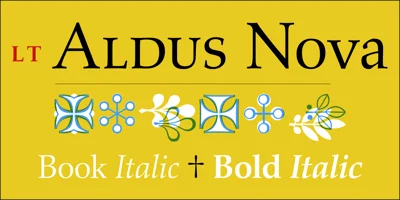
Aldus Nova Font
Aldus Nova Font is ideal for fine literature publishing, academic journals, scholarly publications, classical poetry collections, Renaissance studies materials, humanist typography projects, university press books, and distinguished editorial designs requiring exceptional reading comfort.
What makes Aldus Nova Font exciting is its humanist perfection that embodies the revolutionary printing innovations and scholarly excellence of Aldus Manutius through refined, reader-optimized letterforms. This masterful typeface features contemporary interpretations of Renaissance proportions with enhanced legibility that honors the pioneering spirit of Venetian printing while delivering superior reading experiences, making it perfect for projects requiring both historical reverence and modern typographic excellence in their scholarly communications.
The Aldus Nova Font family includes multiple weights and optical sizes, plus expert character sets with oldstyle numerals and classical ligatures that enhance the humanist aesthetic with authentic Renaissance typography conventions and contemporary refinements for academic applications.
This exceptional typeface delivers outstanding scholarly authority and reading optimization, making Aldus Nova Font a treasured resource for academic publishing and cultural preservation projects. The font's humanist character makes it perfect for institutions wanting to convey intellectual excellence and typographic sophistication in their publications. University presses and scholarly publishers particularly appreciate its ability to communicate academic gravitas while ensuring effortless reading experiences for extended scholarly texts. The masterfully designed letterforms guarantee superior legibility while preserving the dignified elegance of Renaissance humanism across all applications from academic monographs to literary journals. Whether you're producing prestigious scholarly editions or developing materials for Renaissance humanities programs, this font provides the perfect combination of historical authenticity and contemporary reading optimization. Creative professionals consistently choose this typeface for projects requiring that ideal synthesis of humanist tradition and modern publishing excellence, making it essential for scholarly communications that celebrate both intellectual heritage and reader-centered design in today's academic publishing landscape.